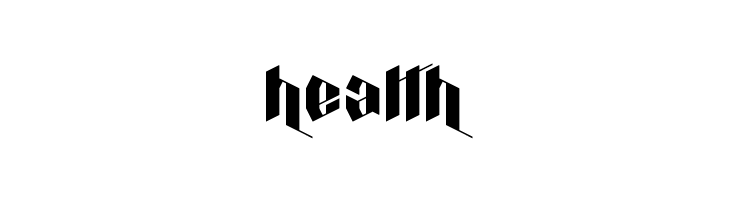
A bold, gothic-inspired font with sharp, angular lines and dramatic strokes.
A bold, angular font with sharp, splintered edges for a striking appearance.
A modern, geometric font with rounded edges and consistent stroke widths.
A bold, geometric font with a modern, tech-inspired design.
A pixelated, blocky font with a retro digital aesthetic.
A bold, angular font with a futuristic and edgy design.
A pixelated, retro-style font with a blocky, geometric design.
A bold, geometric font with a futuristic and edgy design.
A bold, angular font with a runic, tribal aesthetic.